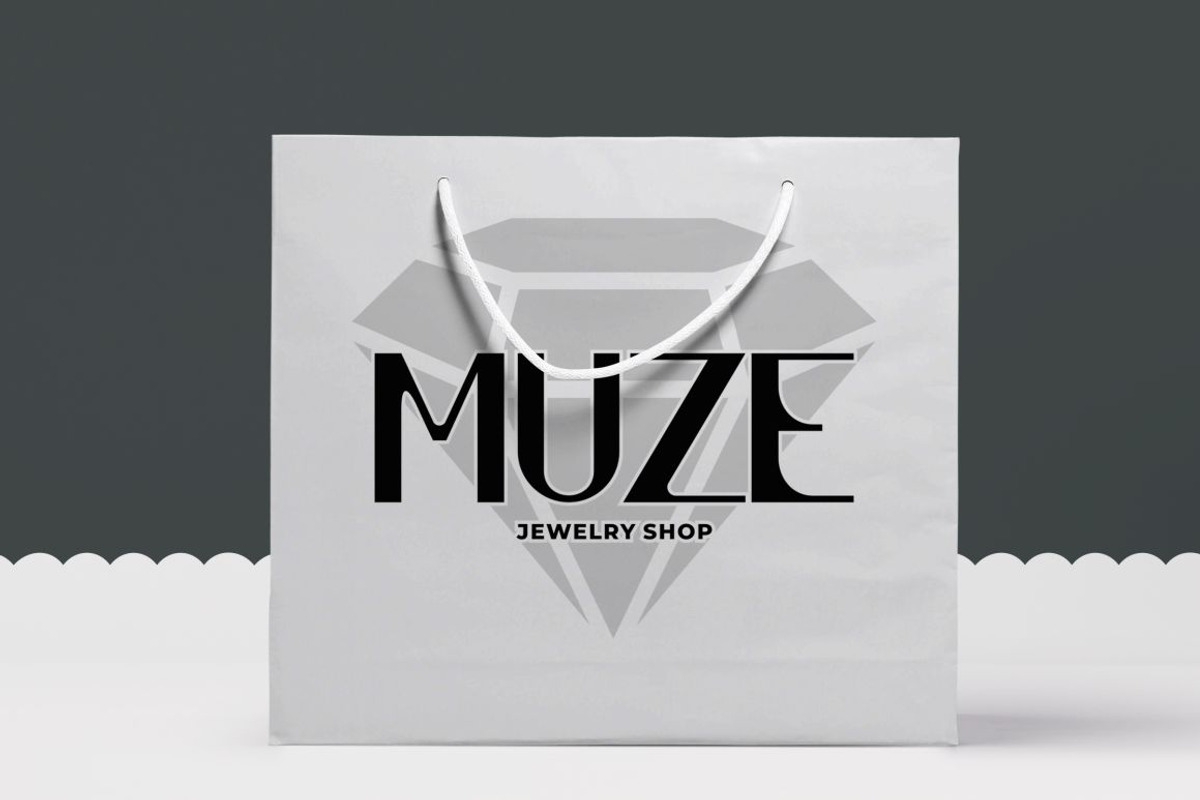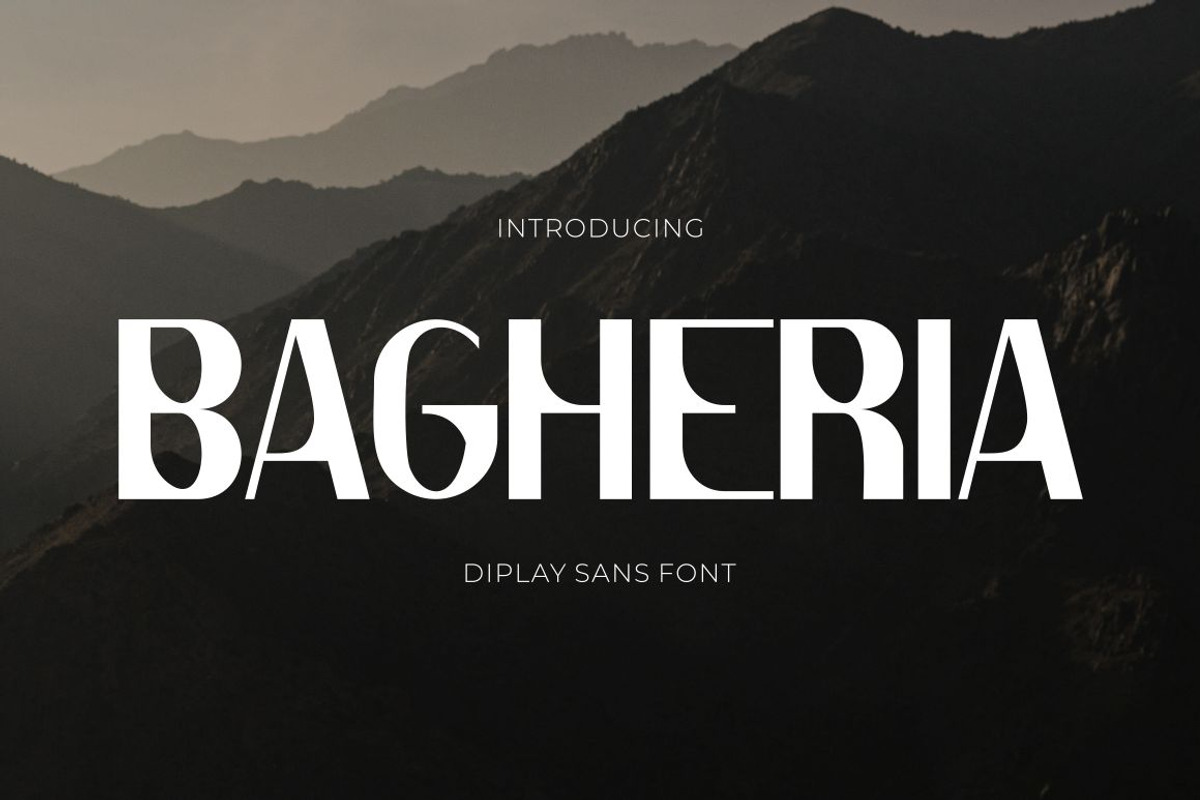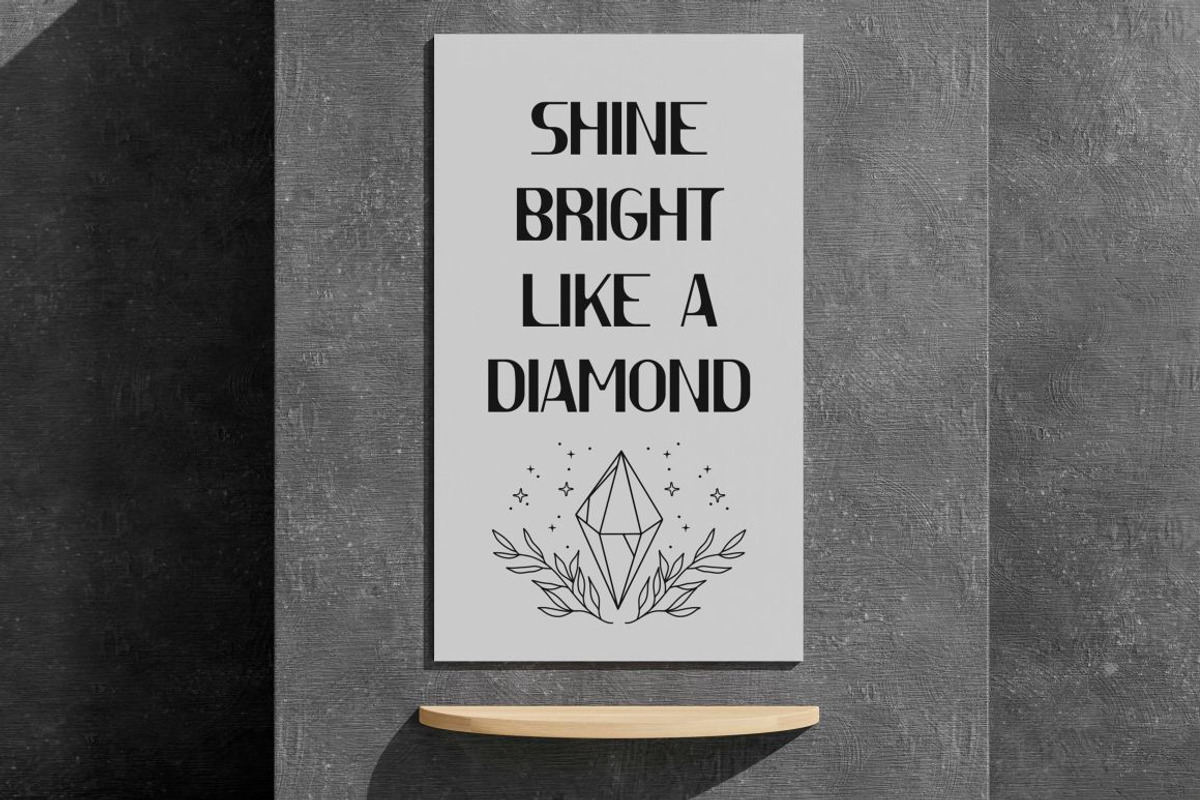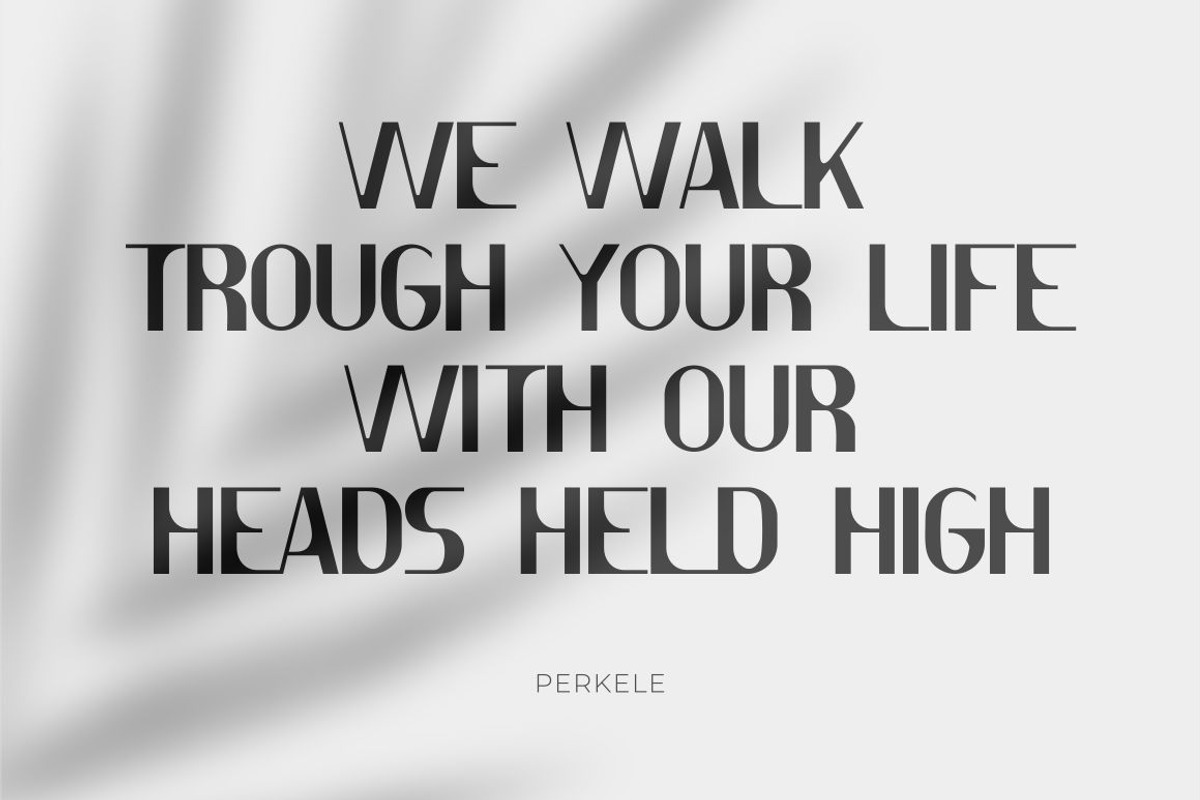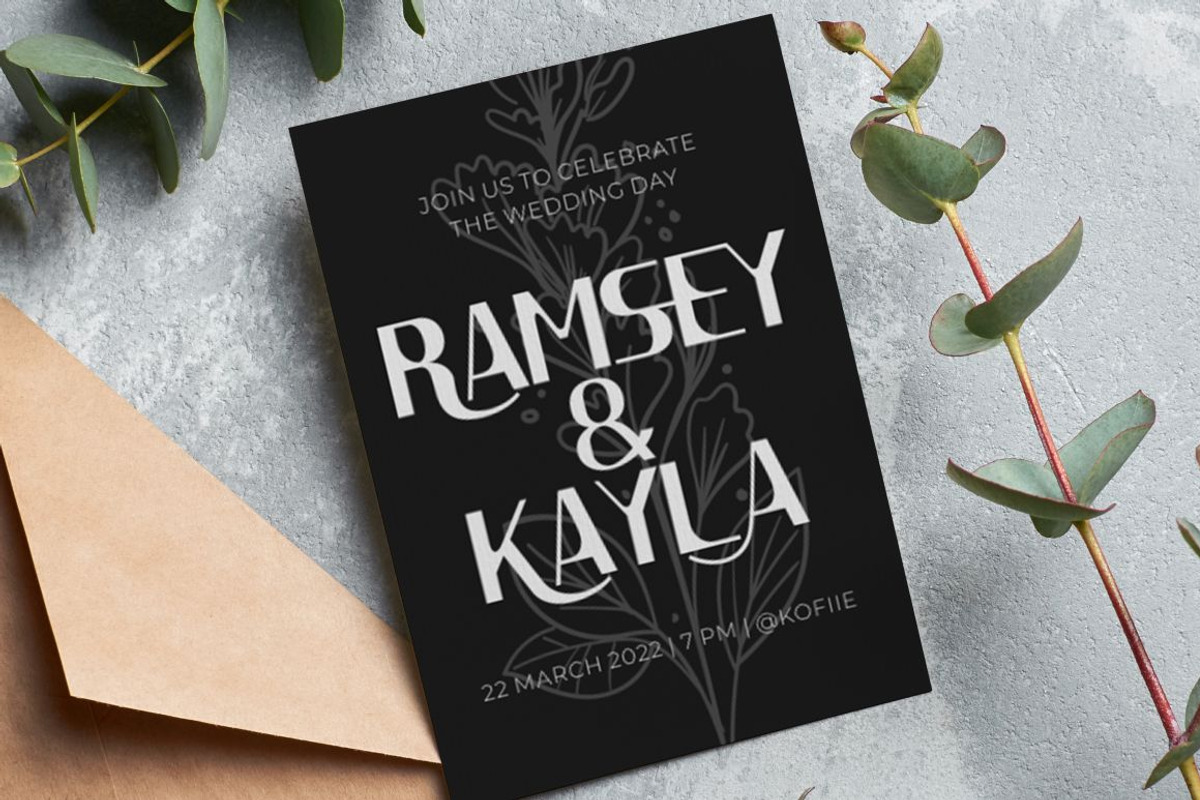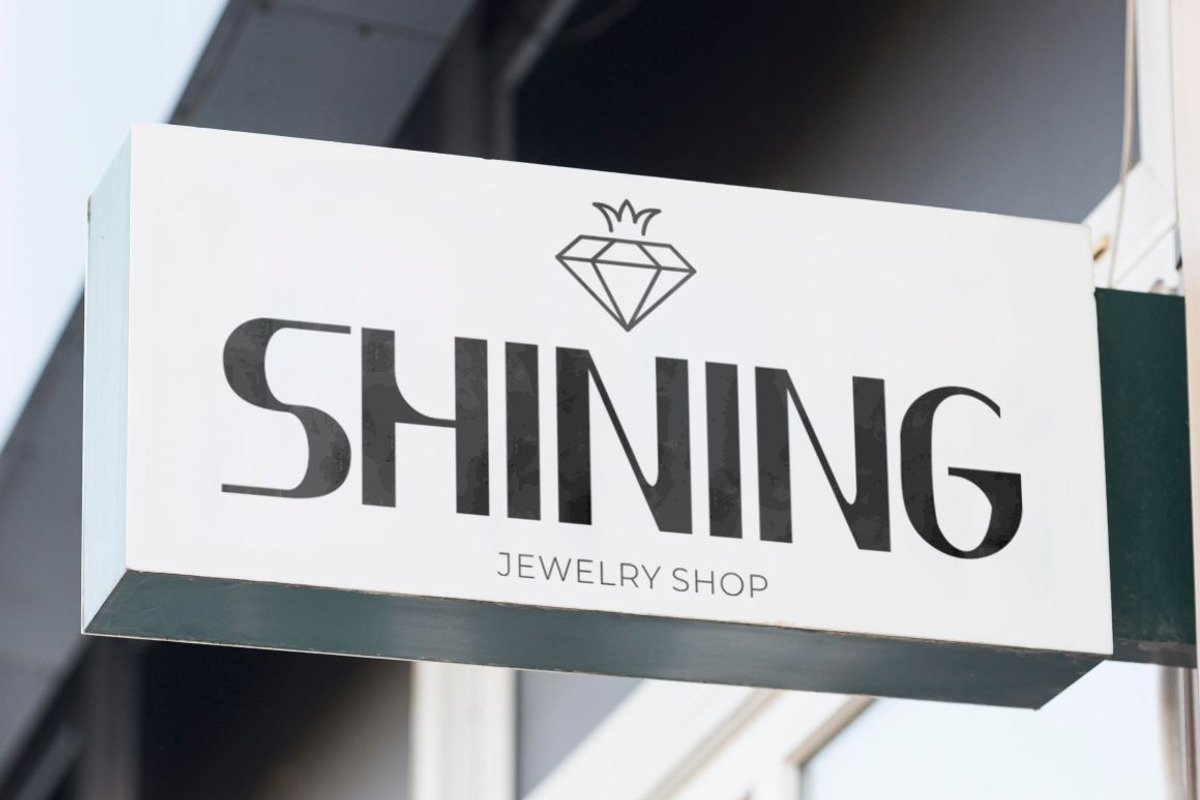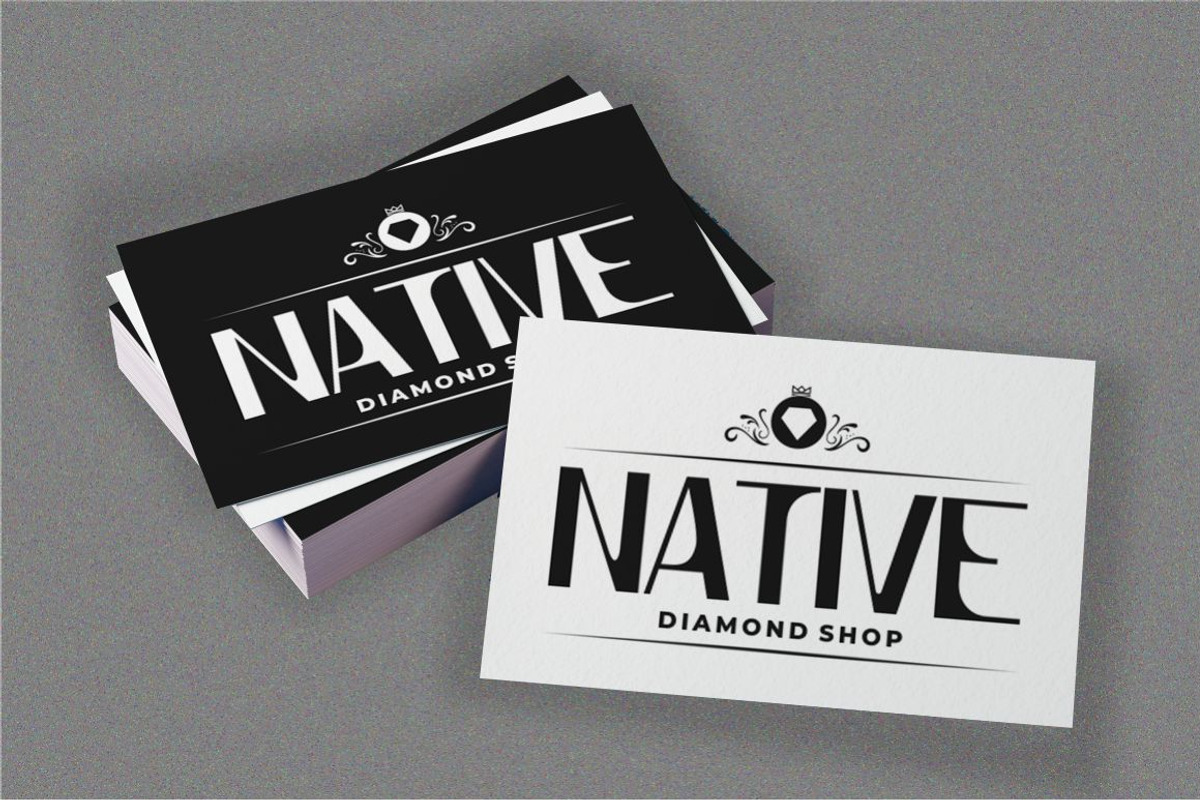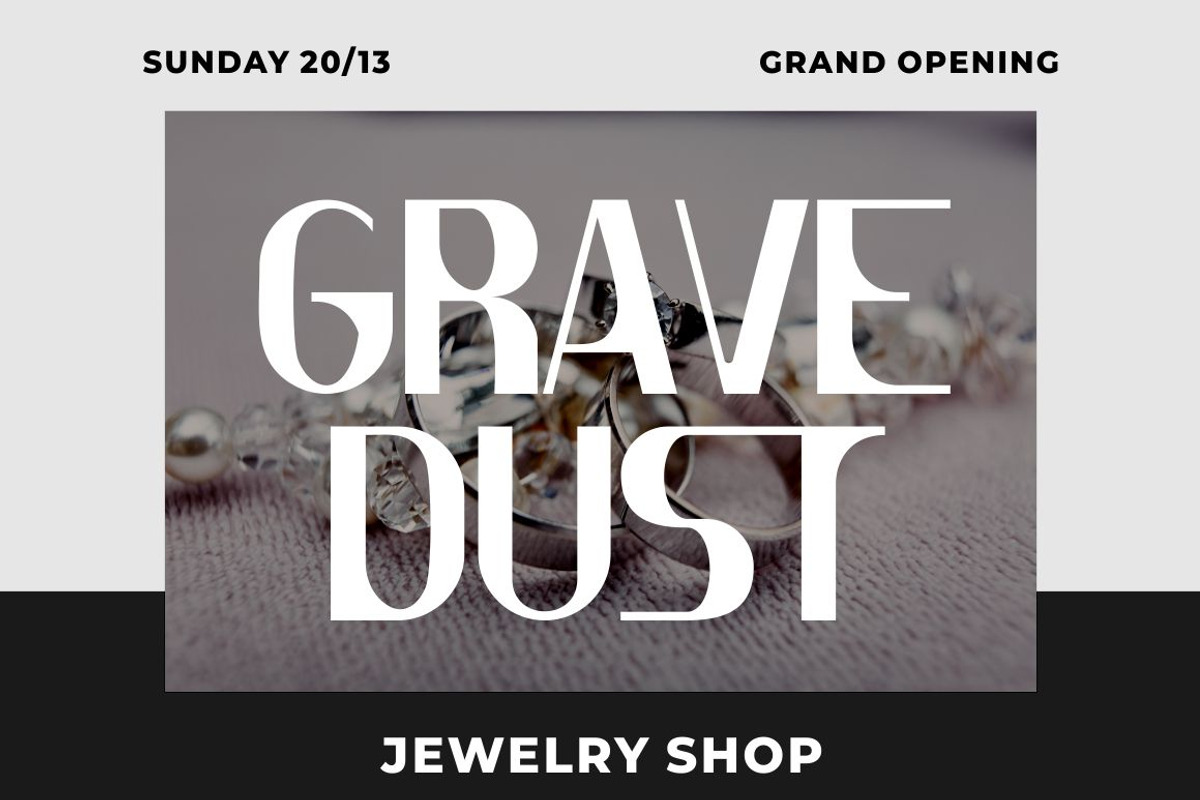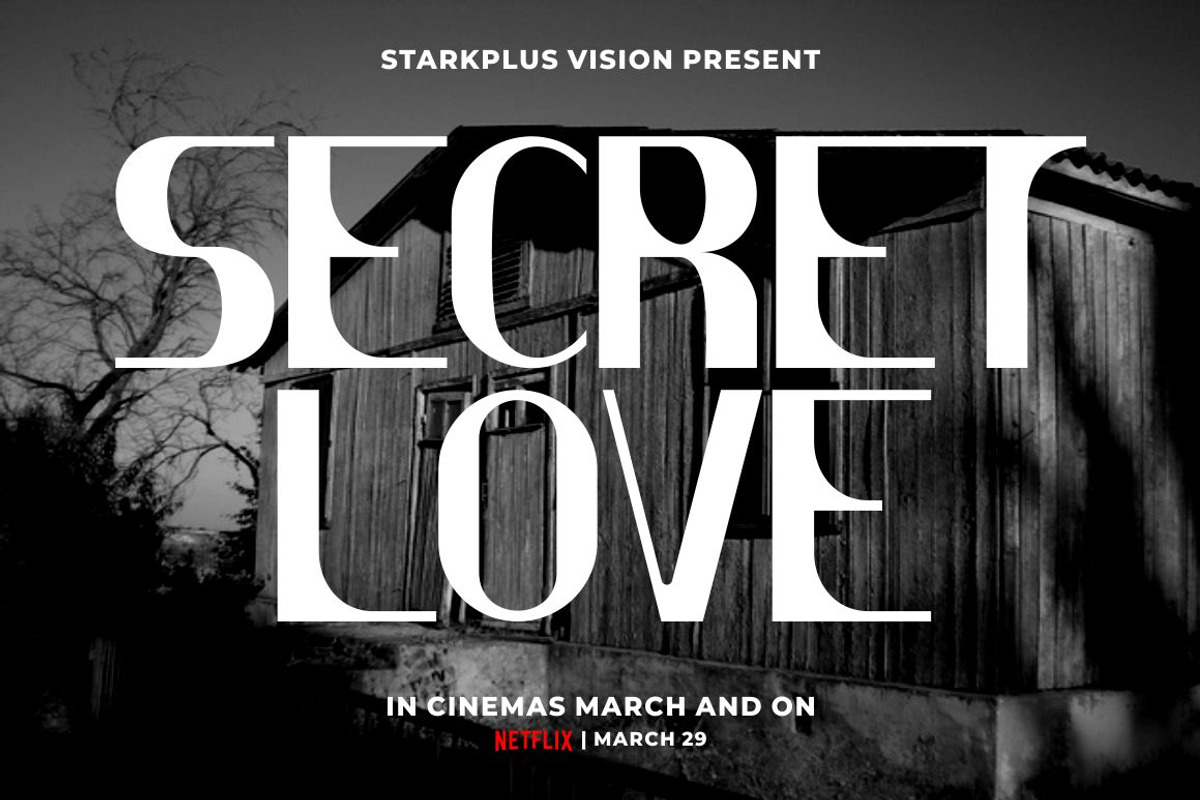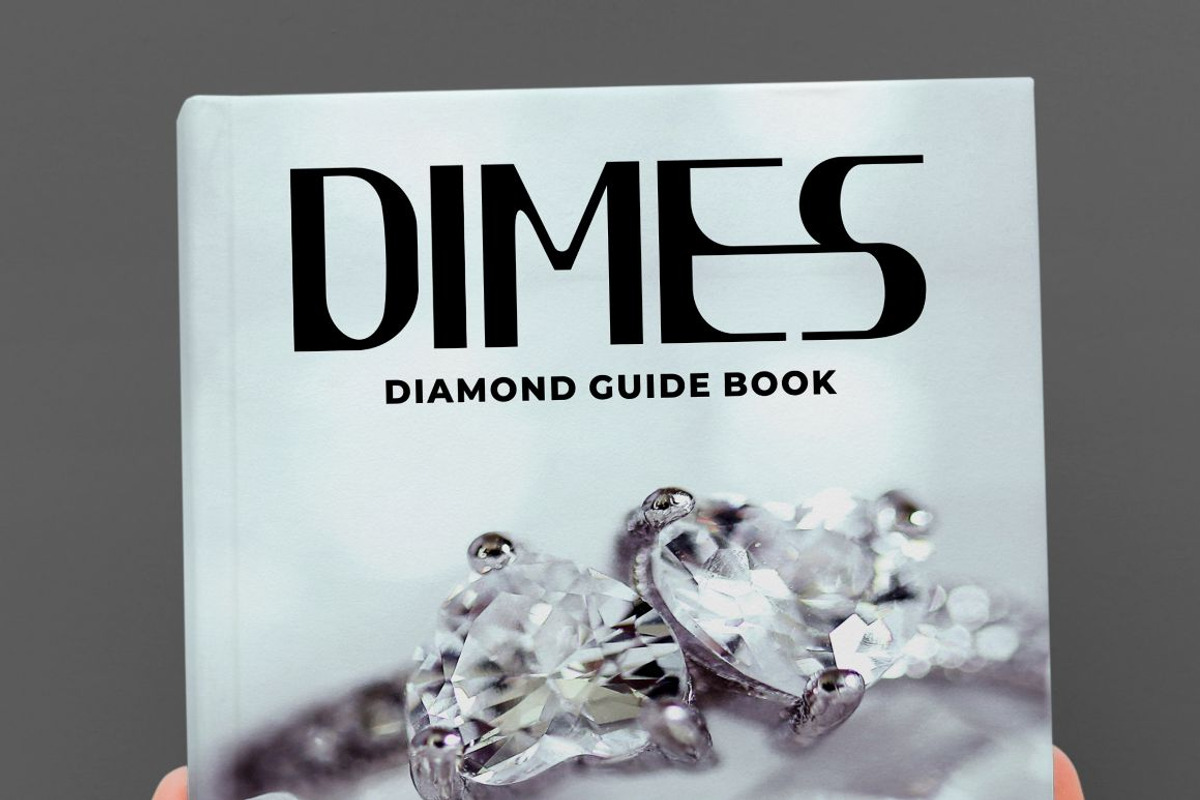
Bagheria - Stylish Modern Sans Font
BAGHERIA - STYLISH MODERN FONT
BAGHERIA - STYLISH MODERN FONT. Bagheria font makes for more fun, trendy and more lively. This font is inspired by the bold font style and well balanced curves.This font has a surprise from alternate that will make your work even more beautiful.
This font is perfect for a professional touch which makes it even more unique and classic. But this font is also suitable for logos, branding, greeting cards, invitation cards, advertisements, titles, healines, book titles, stickers, packaging, quotes, posters, t-shirts/apparel, billboards and others.